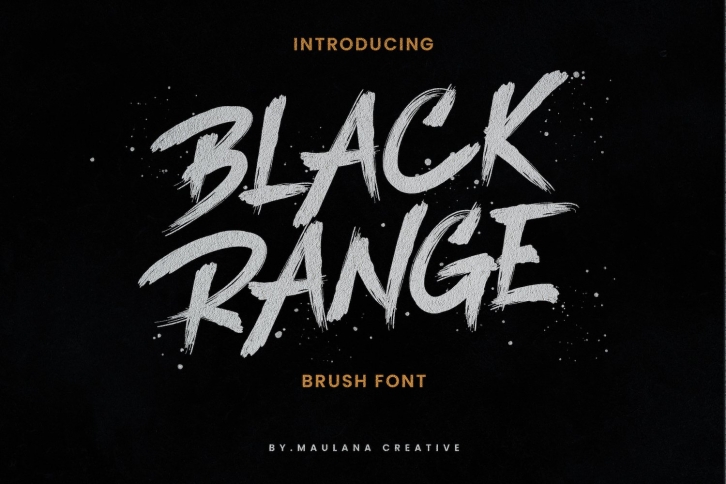
Black Range Brush Font Download
Black Range Brush is a great font that was designed by Maulana Creative. Imagine the amount of combinations you can create using this font! The archive is 7.56 MB and it was released on October 6, 2020. Black Range Brush looks beautiful on wedding invitations, greeting cards, logos, posters, labels, t-shirt designs, logos, business cards and is perfect for use in ink or watercolor works, fashion, magazines, packaging and food menus, children's books and more!